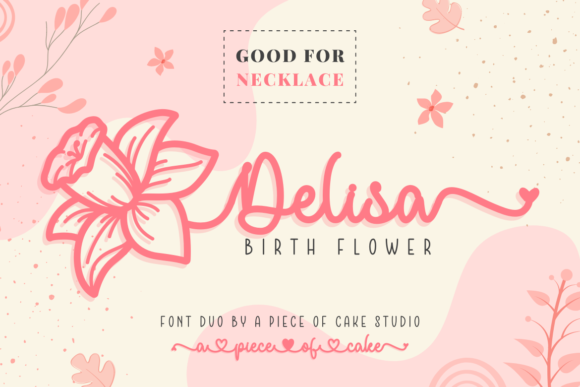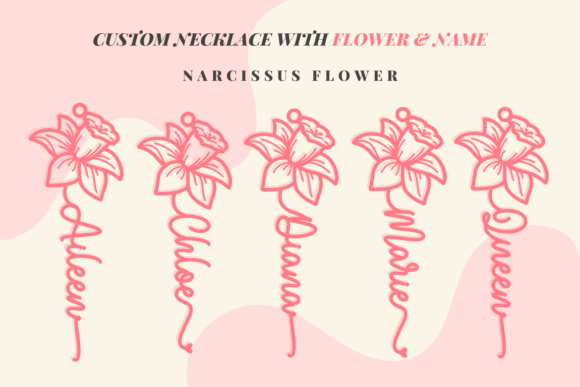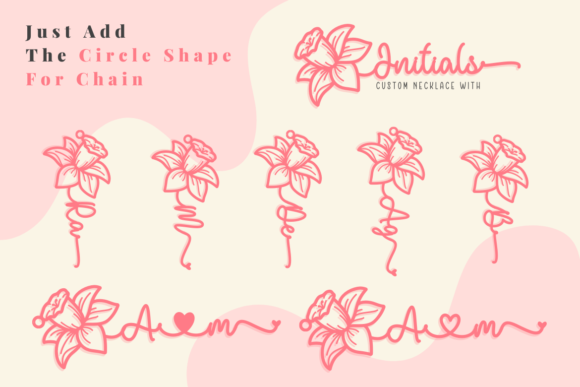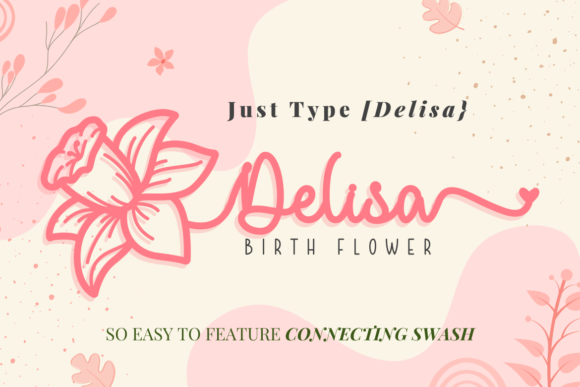
Delisa Birth Flower Duo Font
About the Delisa Birth Flower Duo Font
The wait is over! The incredible Delisa Birth Flower Duo Font is now available for your design toolkit. Delisa Birth Flower Duo is a vintage styled script and sans serif font, carefully created with a touch of elegance. Whether you’re looking for fonts for Instagram or calligraphy scripts for DIY projects, this font will turn any creative idea into a true piece of art!
March birth flower
Delisa Birth Flower Duo’s elegant vintage style makes it ideal for headlines, short text blocks on invitations or social media graphics, and branding elements requiring a touch of refined flair. It excels in projects emphasizing handcrafted aesthetics, such as logos for boutique businesses, wedding stationery, or product packaging for beauty or lifestyle brands. However, its intricate details make it less suitable for body text or UI elements where readability is paramount.
This font’s personality is sophisticated yet approachable. To balance its script component, pair it with a clean sans-serif like Montserrat for a modern feel or a geometric sans-serif like Futura for a more classic contrast. Alternatively, a neutral serif like Lato would add warmth and readability to longer supporting text.
Avoid using it for lengthy paragraphs or small sizes, as its delicate flourishes might become illegible. The sans-serif component is best used for supporting text where clarity is needed.